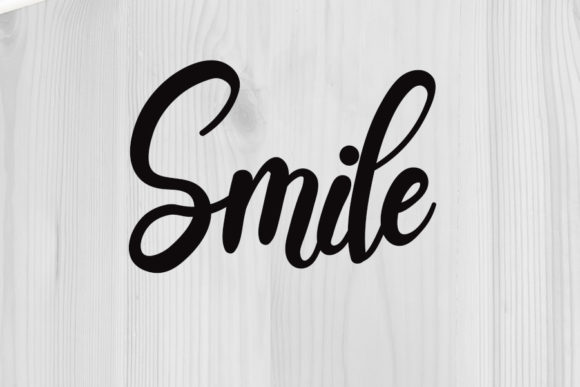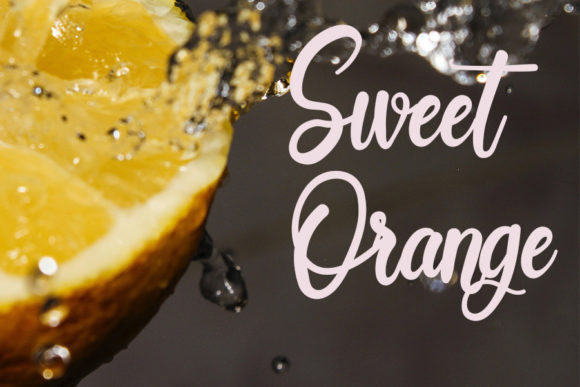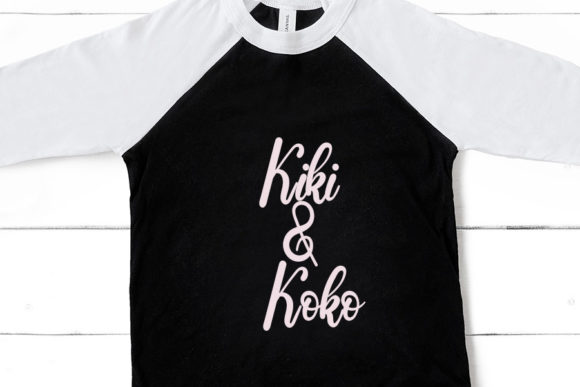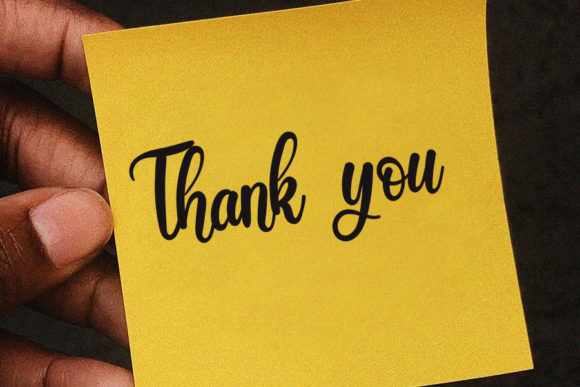
Introduction to Introducing Font
Have you ever found yourself staring at a blank canvas, searching for the perfect font to bring your creative project to life? The struggle is real, but today, we’re thrilled to introduce you to a game-changing design resource that’s about to revolutionize the way you approach typography – Introducing Font.
This elegant script font boasts a contemporary atmosphere and impeccable form, inspired by timeless classic calligraphy. Its balanced and varied strokes make it the perfect addition to any design, from modern graphics to elegant invitations. With its versatility and high quality, Introducing Font is a valuable asset for designers seeking to elevate their projects and stand out from the crowd.
As a free download, Introducing Font offers an unbeatable combination of style and accessibility, allowing designers to experiment with new ideas and push the boundaries of their creativity. Whether you’re working on a design project with a transparent background or simply need a high-quality font to add some flair, Introducing Font is the perfect solution.
Key Features of Introducing Font
- High-Quality Design: Introducing Font offers a collection of unique and stylish typography elements perfect for any creative project.
- Transparent Background: Each element comes with a transparent background, allowing for seamless integration into any design resource.
- Size: The font includes a range of scalable elements, from small icons to large typography, making it ideal for various design needs.
- Unique Characteristics: Introducing Font features a distinctive and modern style, setting it apart from other design resources and making it a great addition to any creative project.
Honest Review: Introducing Font
I recently stumbled upon “Introducing Font” and I’m excited to share my thoughts on this design resource. As a designer, I’m always on the lookout for high-quality fonts that can elevate my creative projects.
Here are some things that work well about “Introducing Font”:
- ✨ High-quality fonts that are perfect for a variety of design projects
- ✨ Transparent background, making it easy to use in any design scenario
However, I do have a few concerns:
- ⚠️ Limited font options, which may not be ideal for designers working on complex projects
Overall, I’m impressed with “Introducing Font” and I would recommend it to designers who are looking for a reliable design resource. The fonts are high-quality and the free download option is a huge bonus. However, be aware of the limitations and ensure that the fonts you choose are compatible with your design software.
Introducing Font
Font is a versatile design resource ideal for creative projects that require high quality typography. It is available for free download, making it an excellent choice for designers and non-designers alike.
Tips for Getting the Most Out of Font
To get the most out of Font, consider the following tips:
– Use Font with a transparent background to create a modern and sleek design.
– Experiment with different font styles to find the perfect fit for your creative project.
– Combine Font with other design resources, such as images and graphics, to create a visually appealing design.